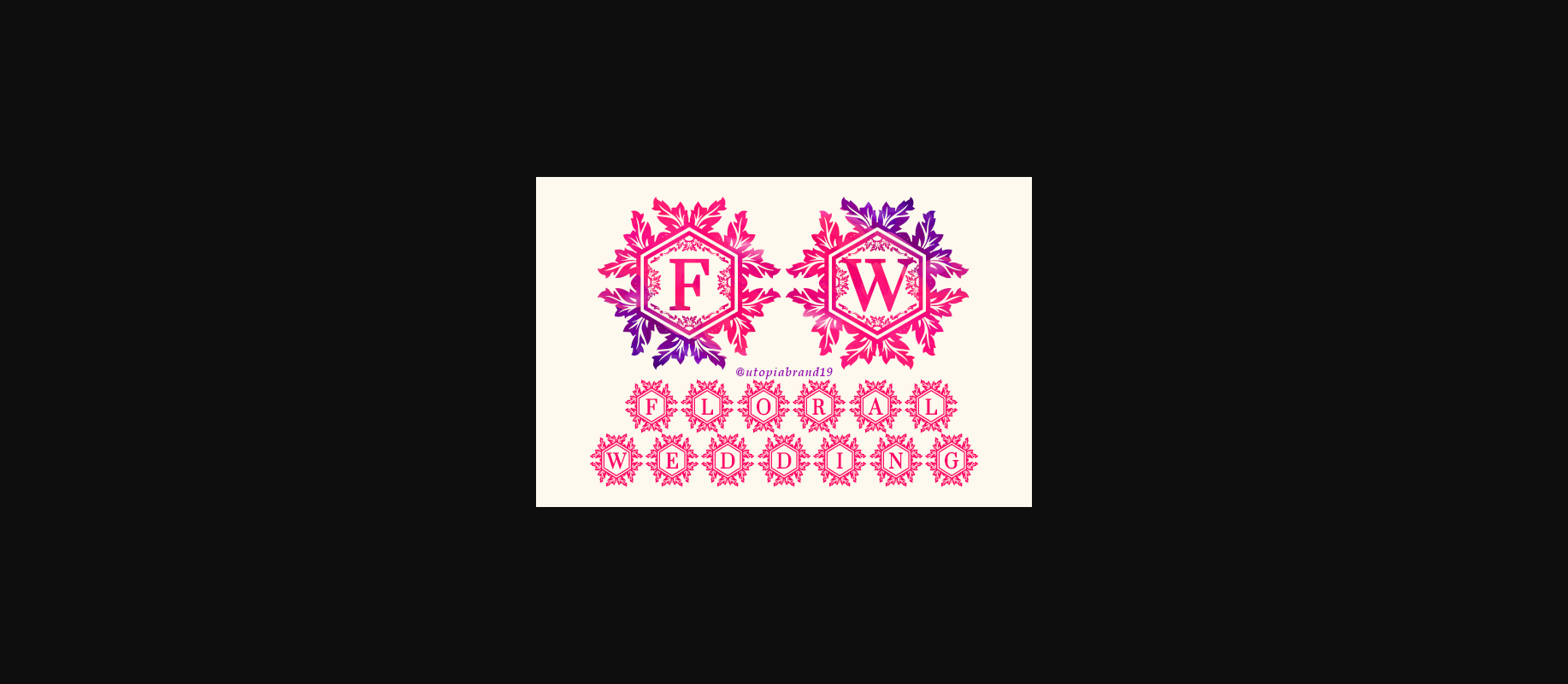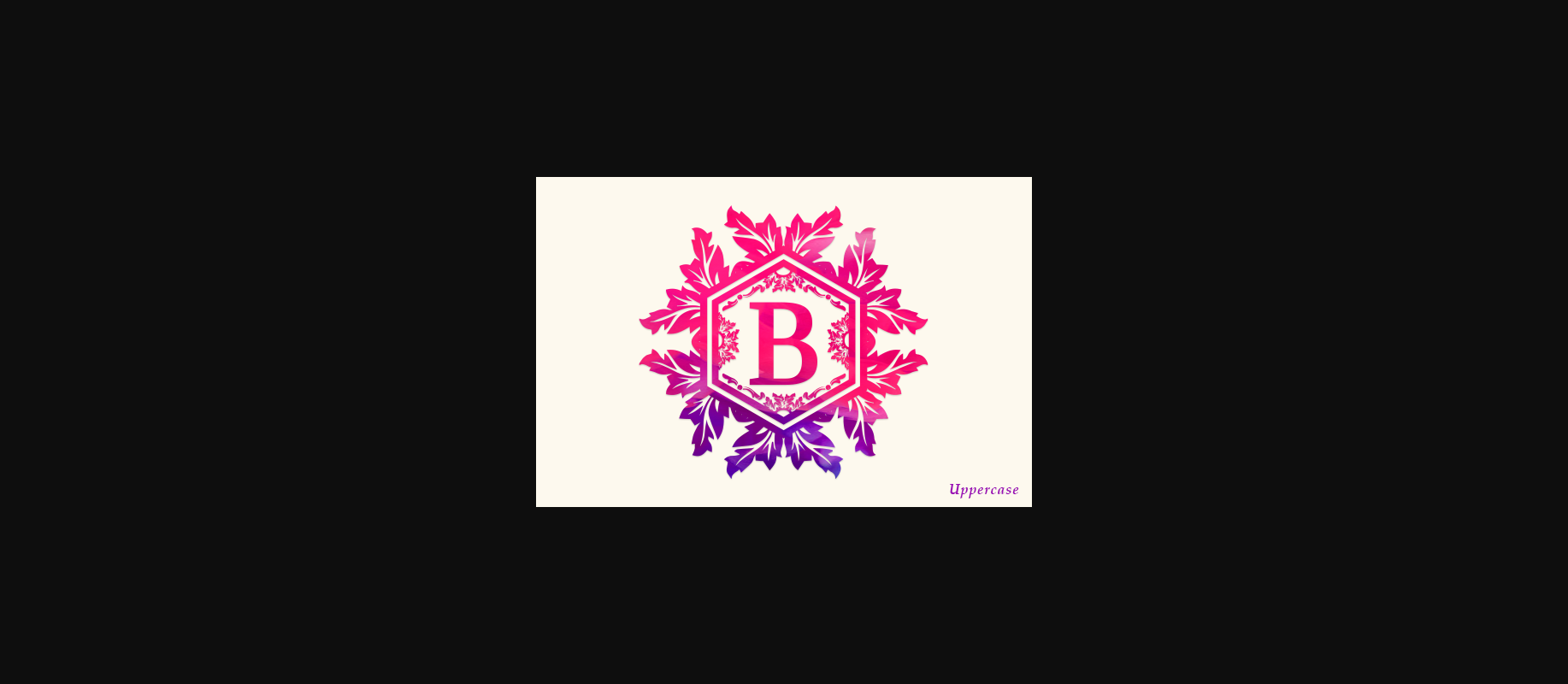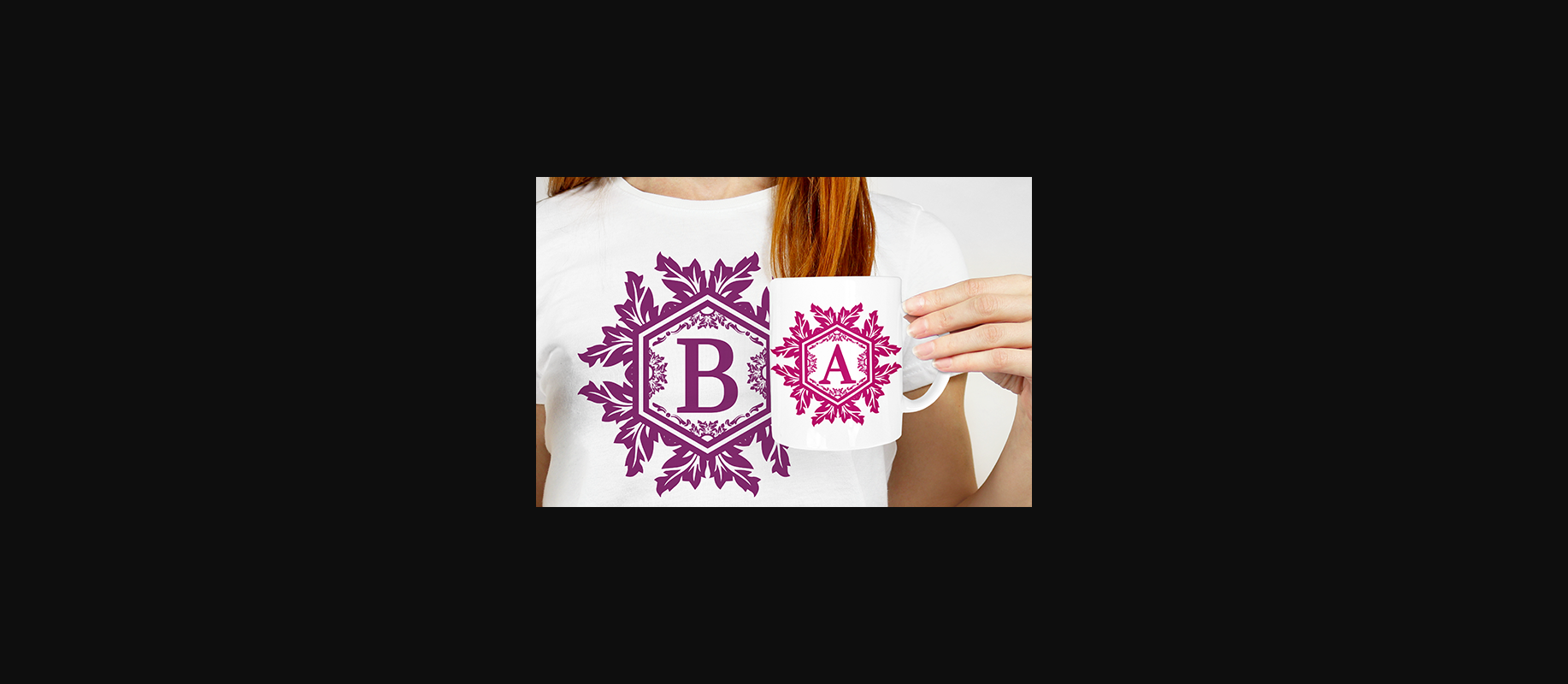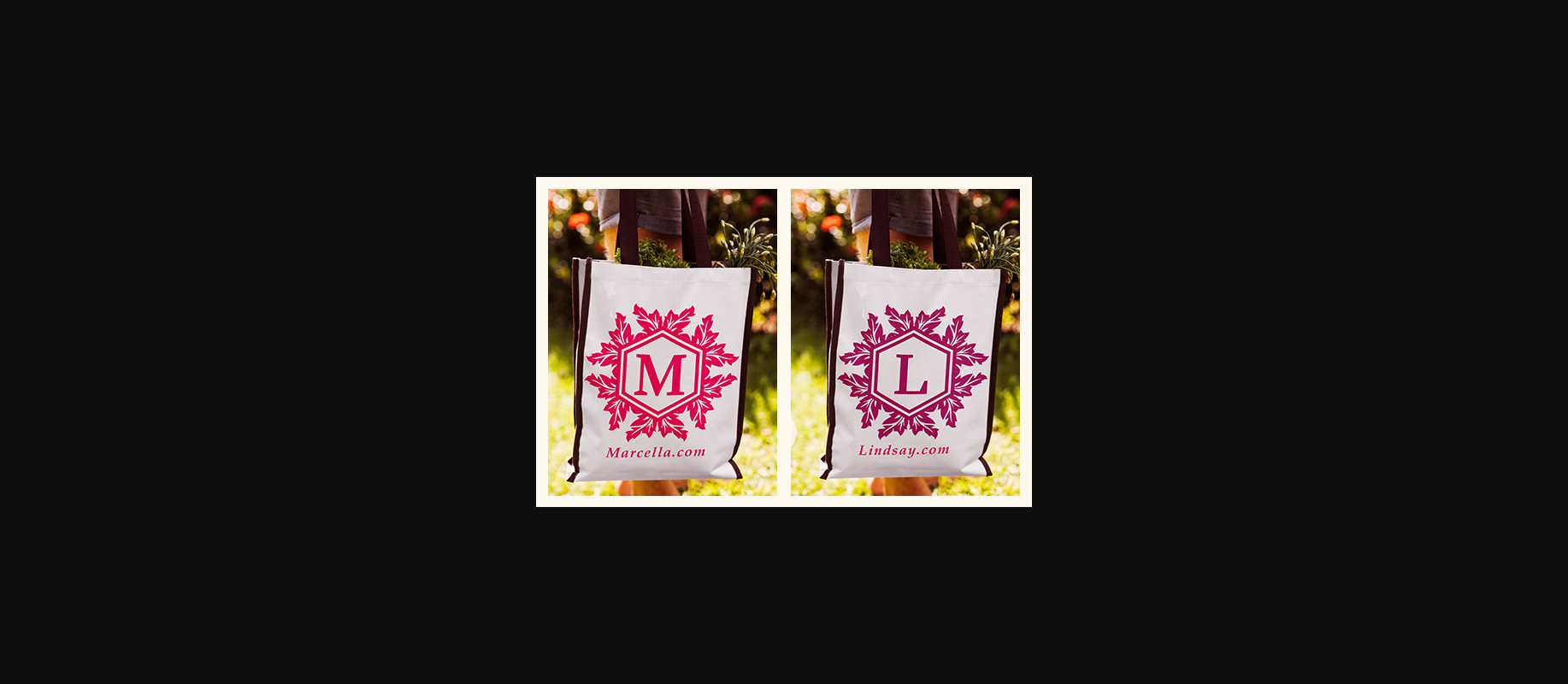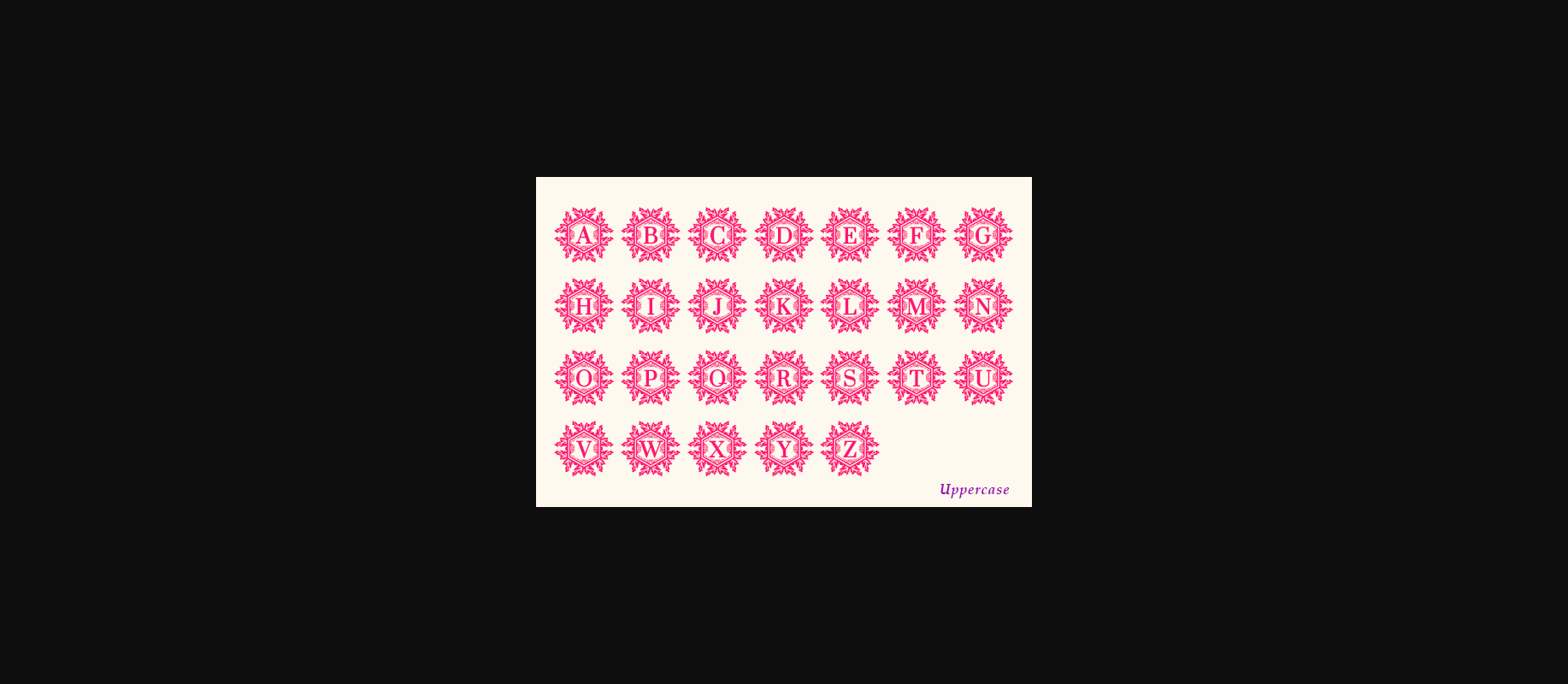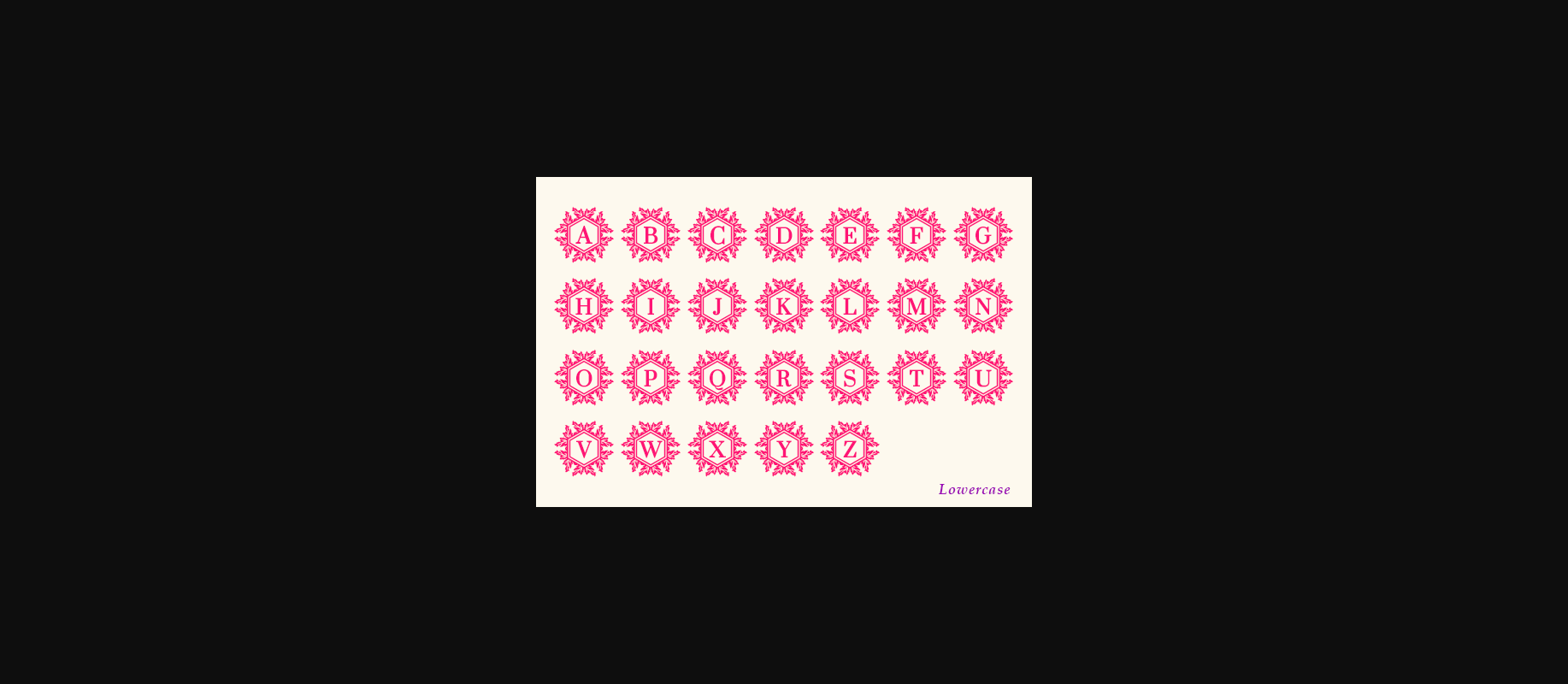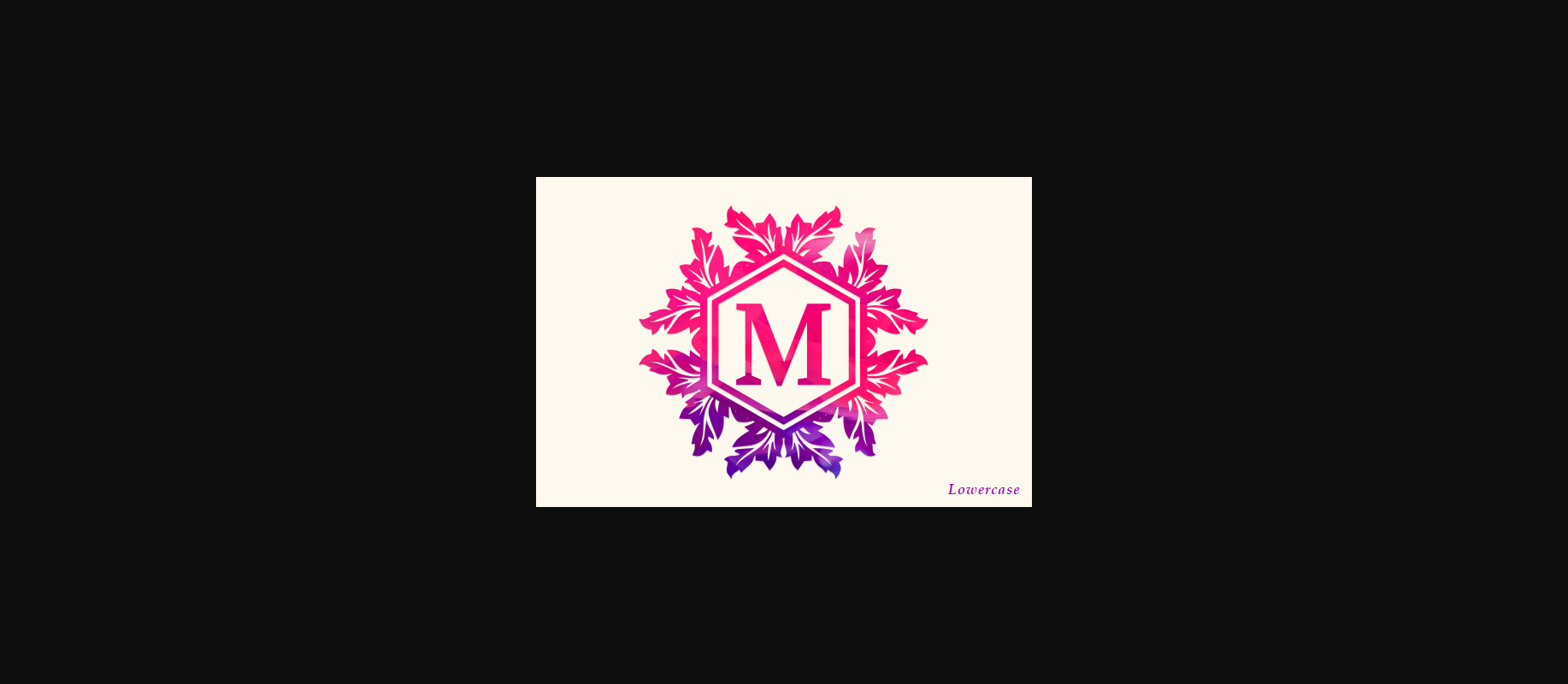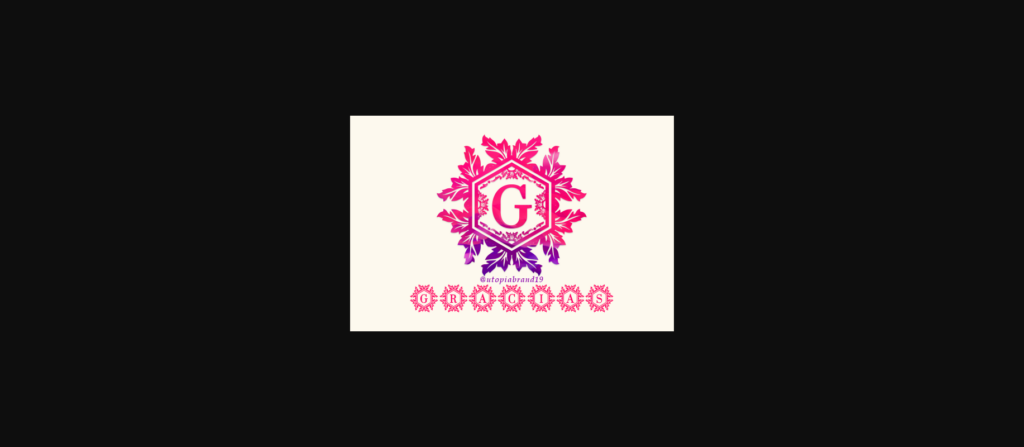
Floral Wedding Font
About Floral Wedding Font
Floral Wedding is a beautiful and chic decorative font. Add this romantic and lovely looking font to each of your love letters, wedding invitations or favorite design ideas, and you will be astounded by the outcome.